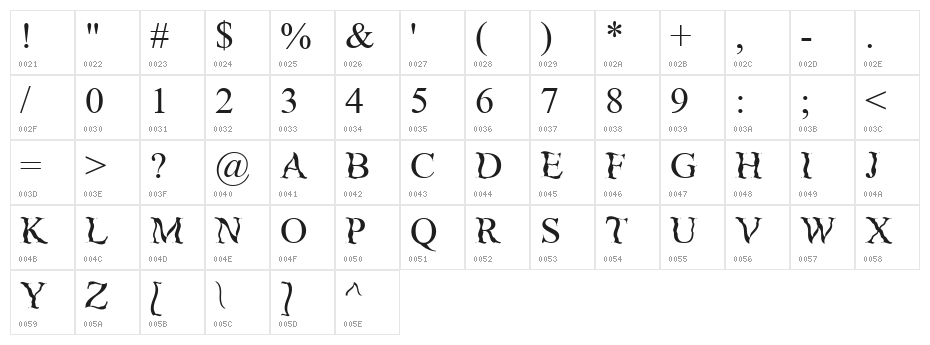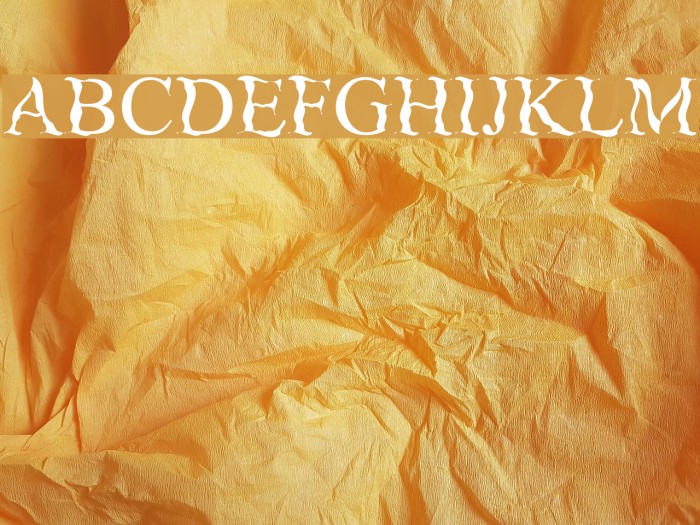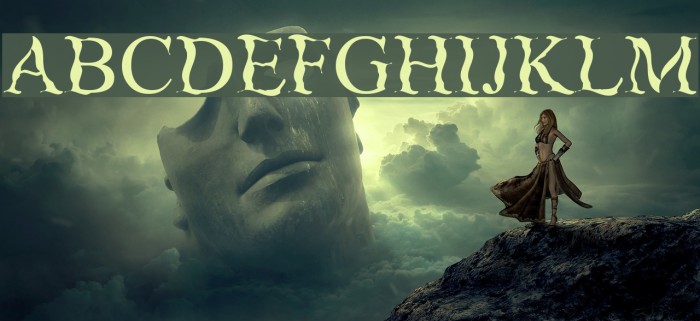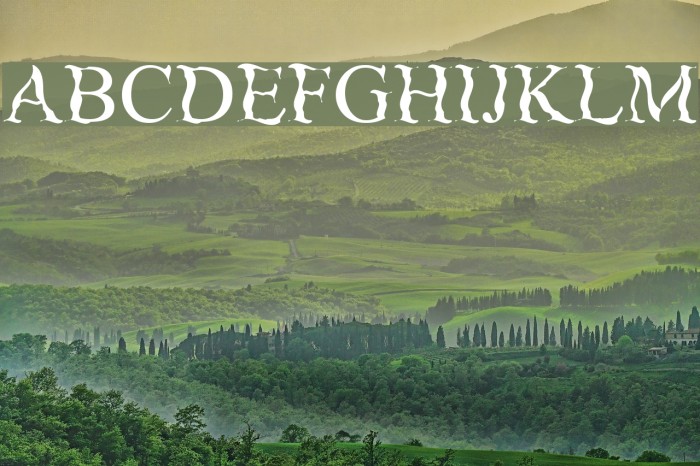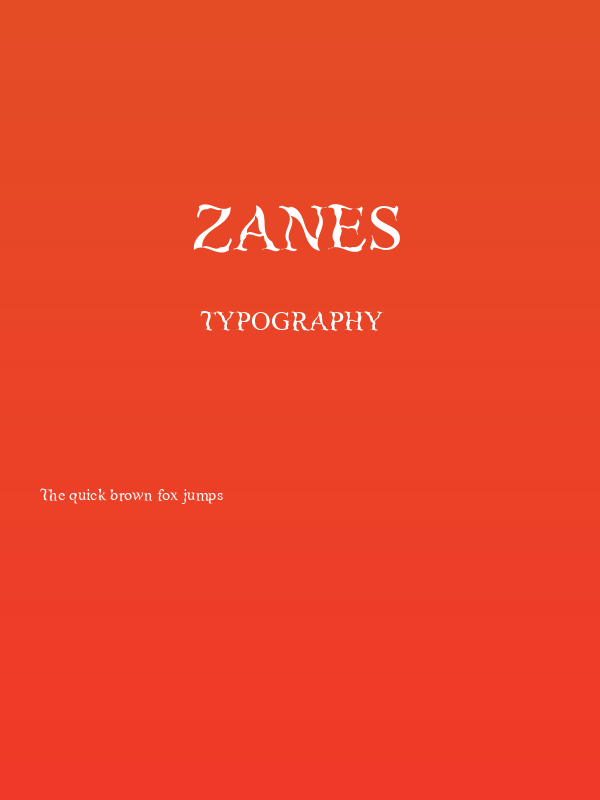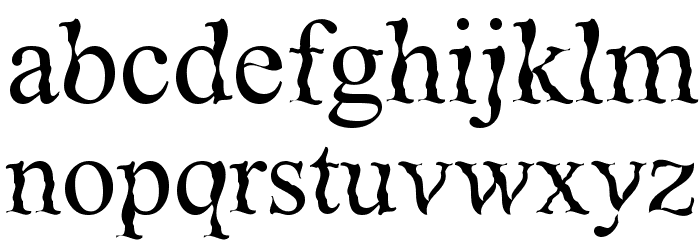
Zanes Font
Zanes Description
This font features a unique and artistic design with a decorative flair. The characters exhibit a bold and dynamic appearance, characterized by sharp, jagged edges and an organic, flowing style. The uppercase letters are particularly striking, with exaggerated serifs and a sense of movement that gives the font a lively and energetic feel. The lowercase letters maintain this theme, offering a cohesive look that pairs well with the uppercase. Numbers and special characters are designed with the same attention to detail, ensuring consistency across all glyphs. This font's distinctive style makes it stand out, offering a creative and bold option for various design projects.